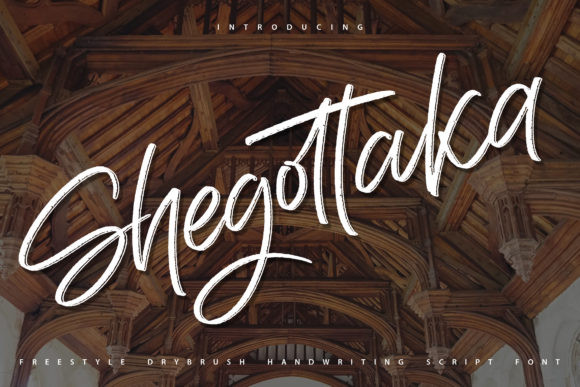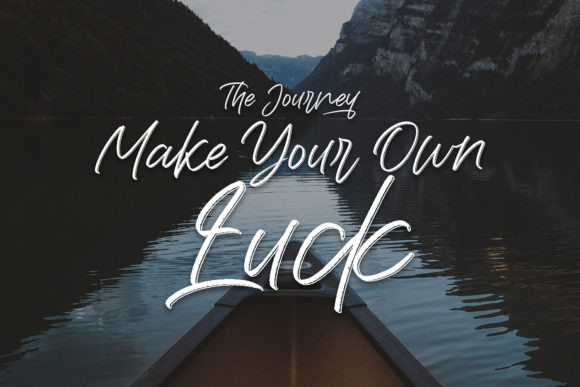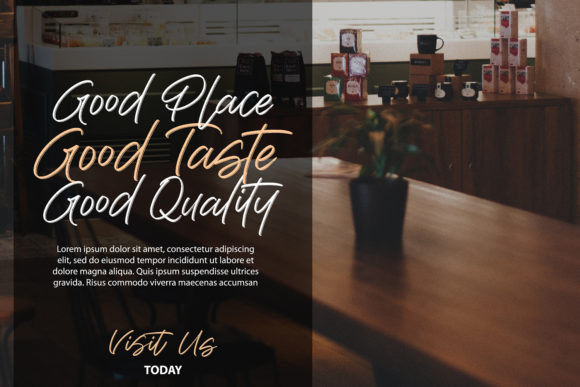
Shegottaka Font
Shegottaka is a neat and flowing handwritten font. It looks incredibly trendy and versatile, so add it confidently to a wide range of designs and you will love the outcome. This font is PUA encoded which means you can access all of the glyphs and swashes with ease!